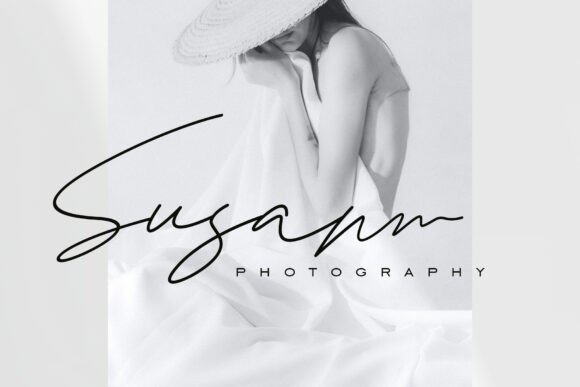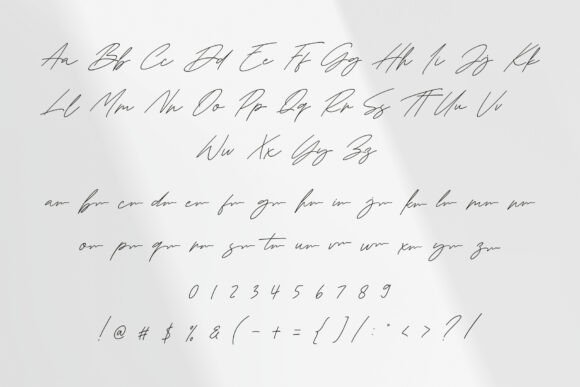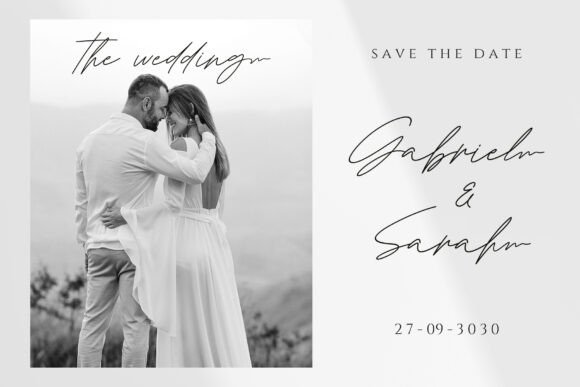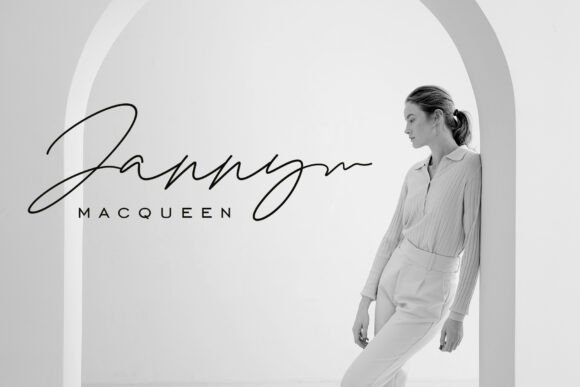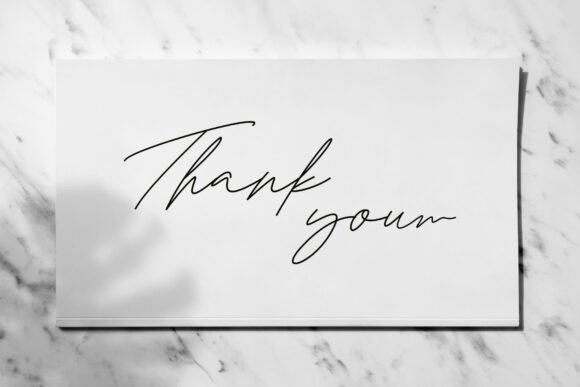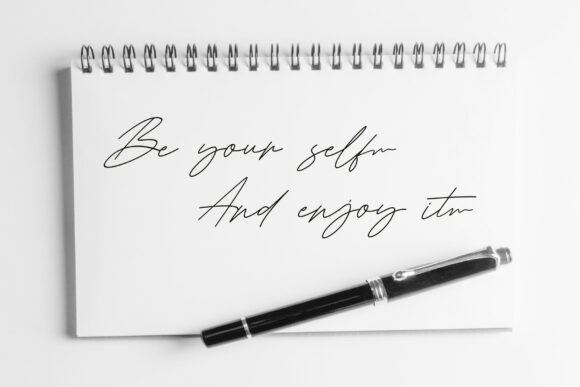
Introducing Gittha Font: Elevate Your Designs with Elegance and Luxury
Are you a designer or crafter looking for a font that exudes sophistication and refinement? Look no further than Gittha Font, an elegant signature font that brings a natural touch and luxurious feel to every curve. In this article, we’ll dive into the world of Gittha Font and explore its features, benefits, and uses, helping you to unlock its full potential and take your designs to the next level.
The Essence of Gittha Font
Gittha Font is a masterfully crafted typeface that embodies the perfect blend of elegance and luxury. Its flowing curves and lines evoke a sense of refinement, making it an ideal choice for designs that require a touch of sophistication. Whether you’re working on a logo design, branding project, invitation, or any other creative endeavor, Gittha Font is sure to impress.
Key Features of Gittha Font
- Elegant Signature Style: Gittha Font boasts a beautiful, cursive script that adds a personal touch to any design.
- Luxurious Feel: The font’s refined curves and lines create a sense of luxury, perfect for high-end designs.
- Natural Touch: Gittha Font’s organic feel makes it suitable for designs that require a human touch.
- Versatile: Use Gittha Font for a wide range of projects, from logo design and branding to invitations and more.
Benefits of Using Gittha Font
So, why choose Gittha Font for your next design project? Here are just a few benefits you can expect:
- Adds Sophistication: Gittha Font instantly elevates your designs, adding a level of sophistication and refinement.
- Enhances Brand Identity: Use Gittha Font to create a consistent brand image that exudes luxury and elegance.
- Perfect for Creative Projects: Whether you’re a designer, crafter, or DIY enthusiast, Gittha Font is the perfect choice for creative projects that require a personal touch.
Design Ideas with Gittha Font
Now that we’ve explored the features and benefits of Gittha Font, let’s take a look at some design ideas to get you started:
- Logo Design: Create a stunning logo for your business or brand using Gittha Font.
- Wedding Invitations: Add a touch of elegance to your wedding invitations with Gittha Font.
- Branding Materials: Use Gittha Font to create a consistent brand image across all your marketing materials.
- Stationery: Design beautiful stationery, including business cards, letterheads, and more, with Gittha Font.
Tips for Using Gittha Font
To get the most out of Gittha Font, here are a few tips to keep in mind:
- Experiment with Sizes: Play around with different font sizes to find the perfect balance for your design.
- Pair with Other Fonts: Combine Gittha Font with other fonts to create a unique and visually appealing design.
- Use in Moderation: While Gittha Font is elegant and luxurious, use it in moderation to avoid overwhelming your design.
In conclusion, Gittha Font is a stunning signature font that brings a touch of elegance and luxury to any design. With its natural touch, refined curves, and versatile style, it’s perfect for designers, crafters, and DIY enthusiasts looking to elevate their creative projects. Whether you’re working on a logo design, branding project, or invitation, Gittha Font is sure to impress. So why wait? Download Gittha Font today and take your designs to the next level!